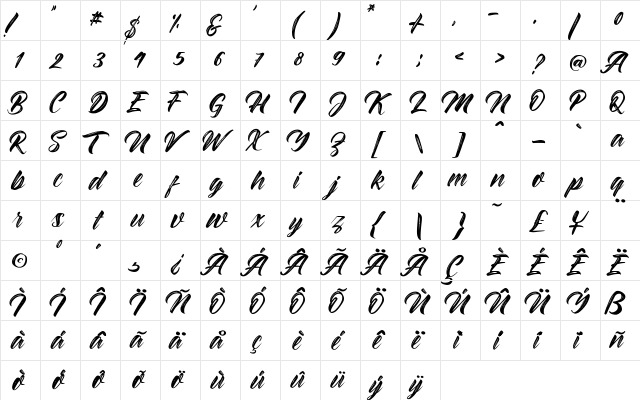
Braydon Script Regular
Design Context for Braydon Script Typeface
Braydon Script flows with the natural rhythm of handwritten lettering, making it ideal for designs that call for warmth and personal expression.
Font Pairing: Combine Braydon Script with a simple geometric sans for maximum contrast — the tension between flowing curves and clean structure is a classic typographic pairing.
Pro Tip: Use Braydon Script for short runs of text — names, titles, or taglines. Extended body copy in script faces tires the eye quickly.